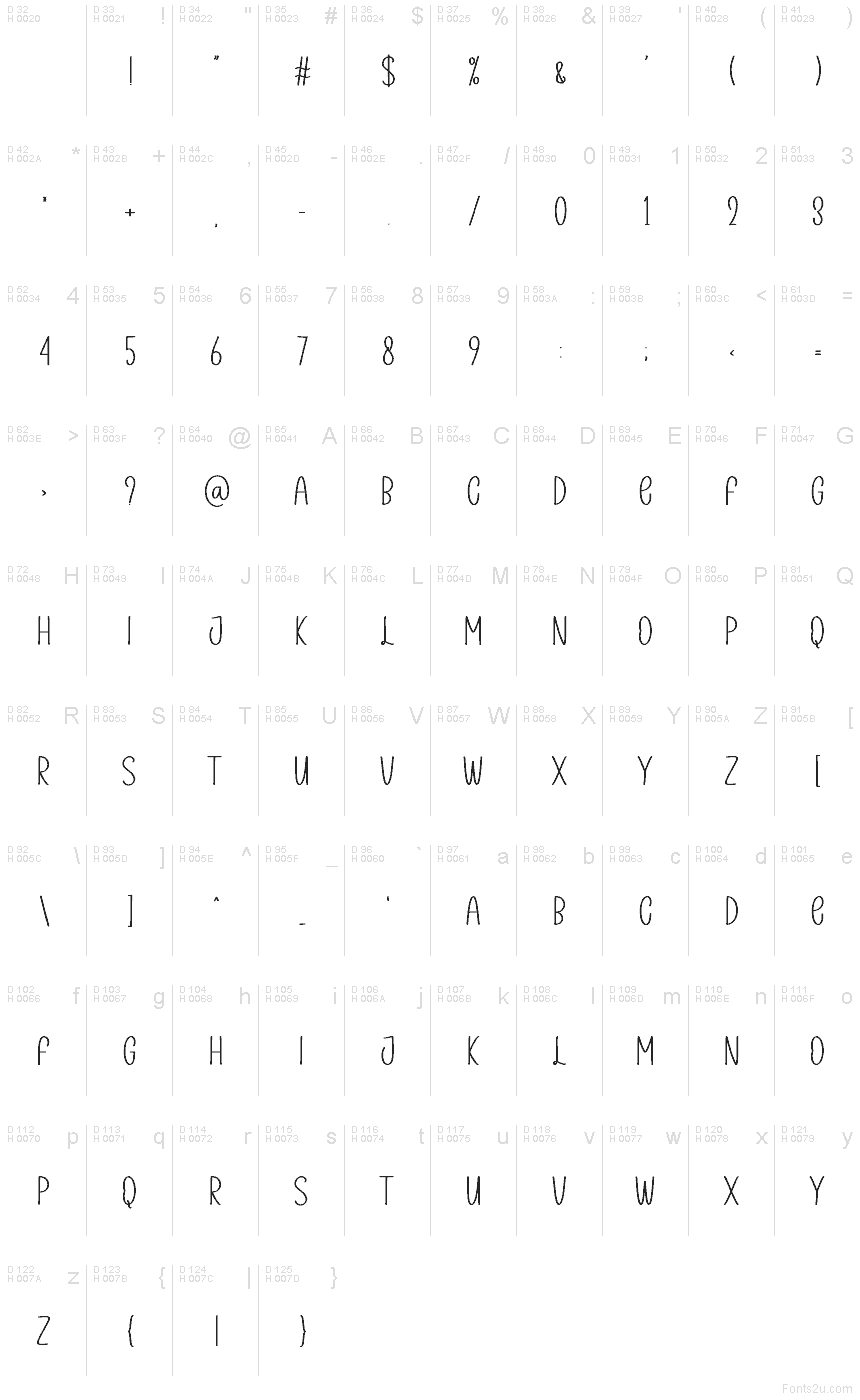
Scenario
Scenario font by Andi Moz is a condensed handwritten font with a casual and friendly design. The modern approach of its neatly rounded characters makes this free typeface easy to read and perfect for display purposes.